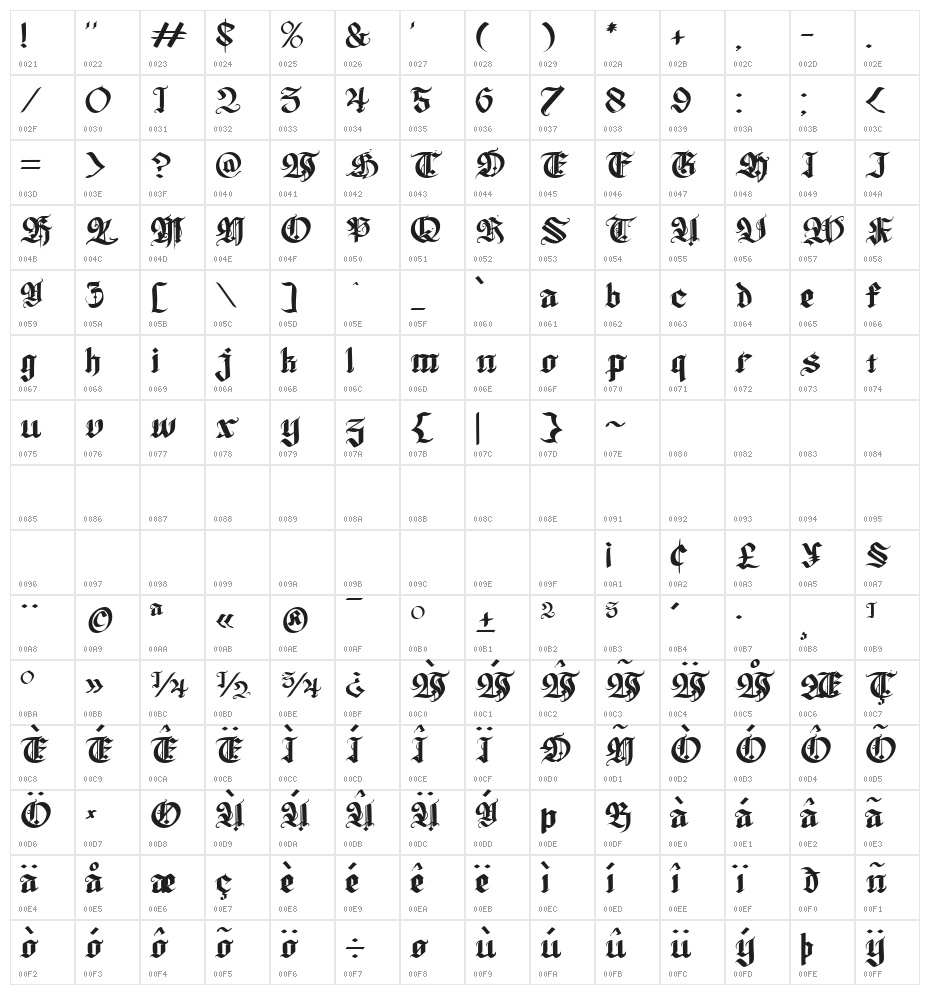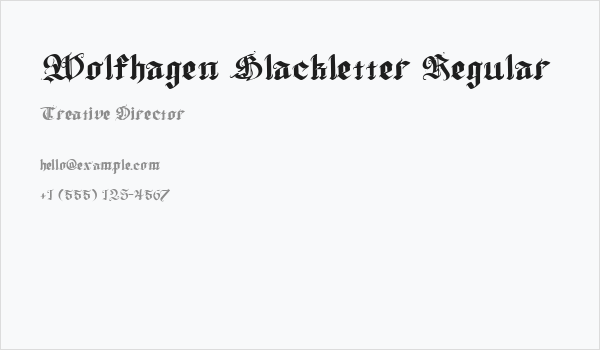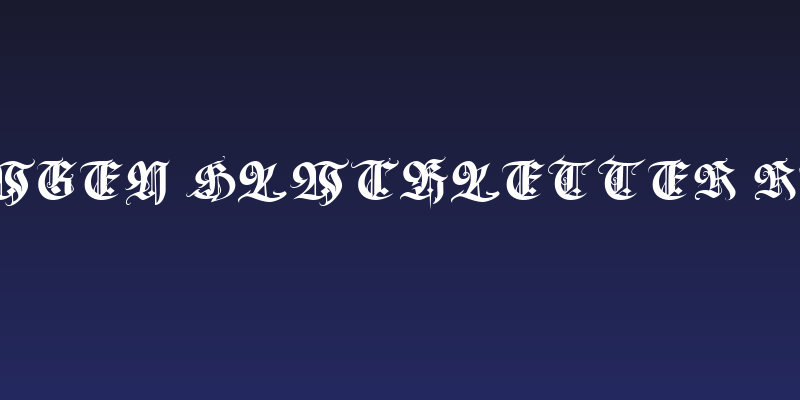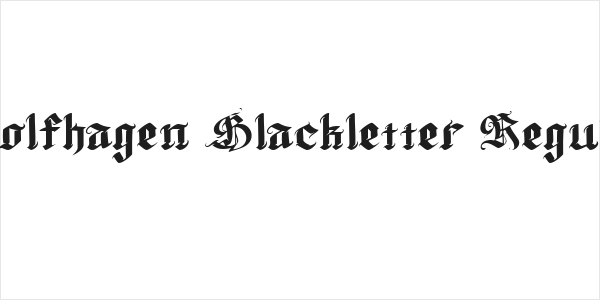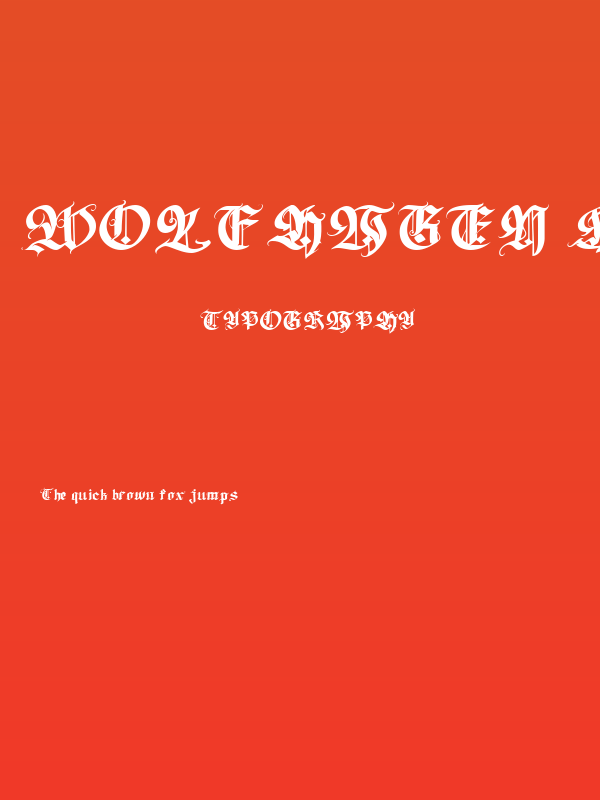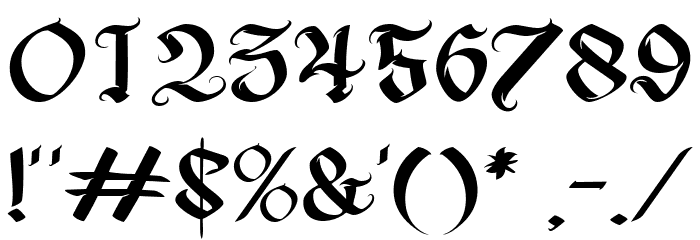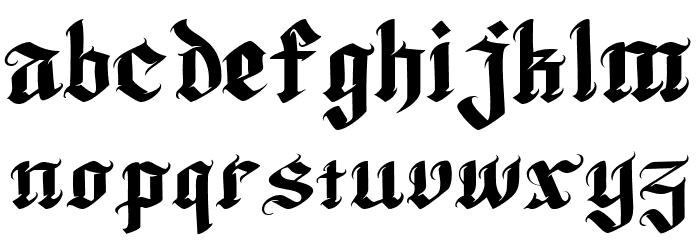
Wolfhagen Blackletter Regular Font
Wolfhagen Blackletter Regular Description
This font embodies the traditional elegance and intricate detailing of classic blackletter styles. Each character is crafted with sharp, angular lines and dramatic flourishes that evoke a sense of historical grandeur. The uppercase letters feature elaborate serifs and ornamental strokes, while the lowercase characters maintain a consistent flow with a slightly more subdued design. The numerals and special characters are equally ornate, ensuring a cohesive appearance across all text. This font's bold presence and high contrast make it ideal for creating striking visual impact.
| Use Case | Headlines, Logos, Decorative text |
| Proposed Projects | Suitable for historical documents, certificates, wedding invitations, gothic-themed designs, and branding that requires a classic, authoritative look. |